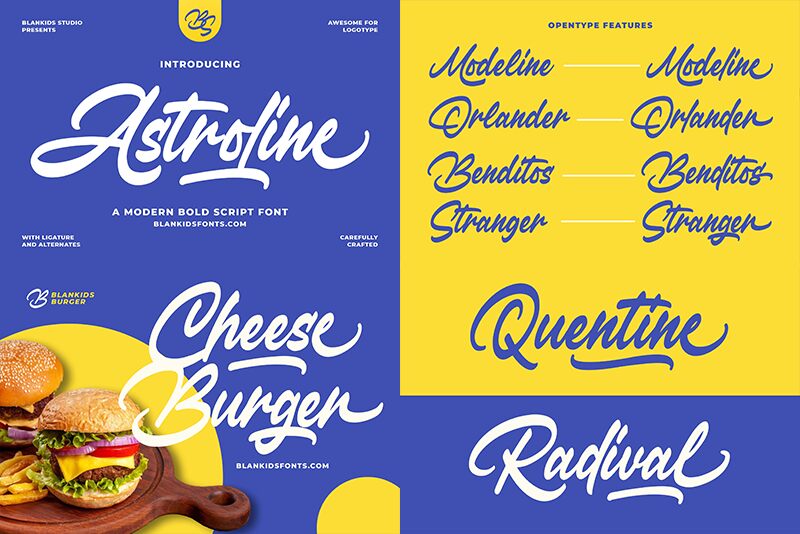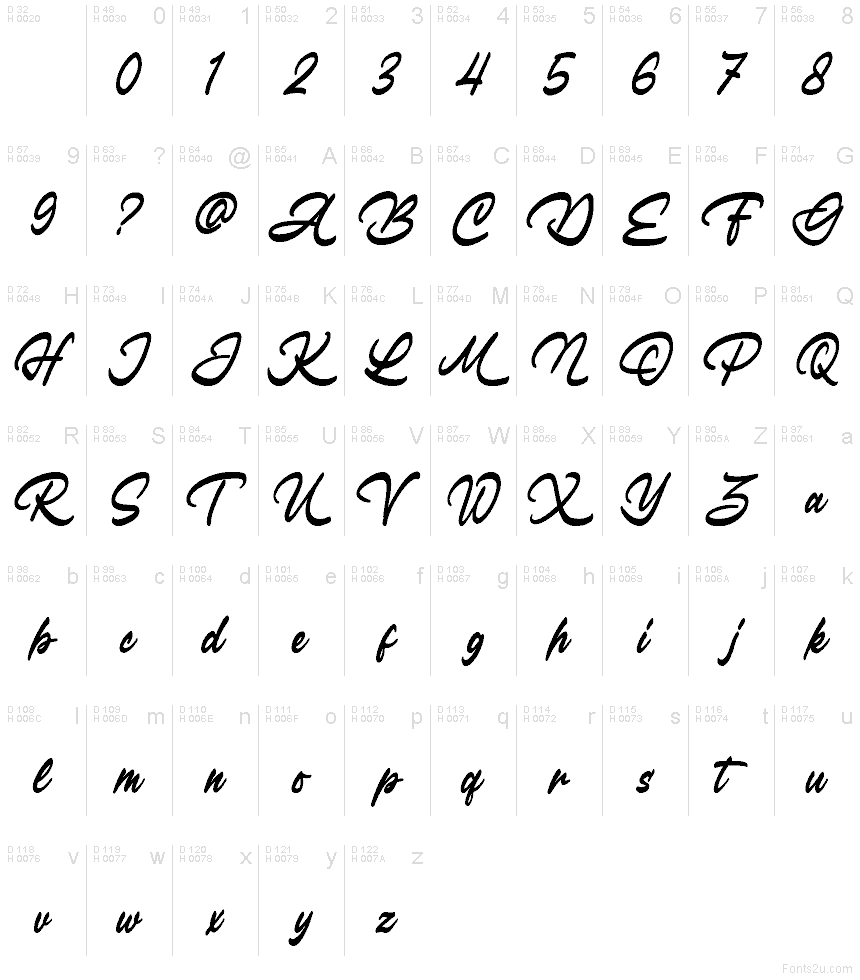
Astroline
Astroline font by Blankids is a free calligraphy font that feels like it was pulled straight from a bold brush pen. Thick, inky strokes sweep into long tails and looping connections, giving every word the confident energy of a hand-painted logo or vintage sign. It’s smooth, tightly drawn, and slightly slanted, so your text looks like a fast, stylish signature rather than stiff digital script.
Using Astroline, your branding instantly gets that “custom lettered” vibe for logos, packaging, t‑shirt graphics, sports teams, social media covers, and signage. This free font shines when it’s large enough for those flowing curves to breathe, so don’t be shy with size. Pair Astroline with a clean, neutral sans serif in small text to let its bold script do the talking.